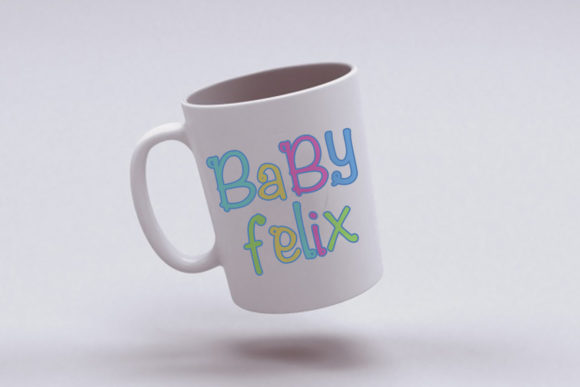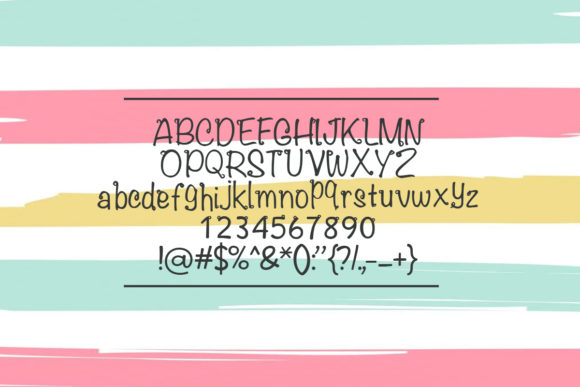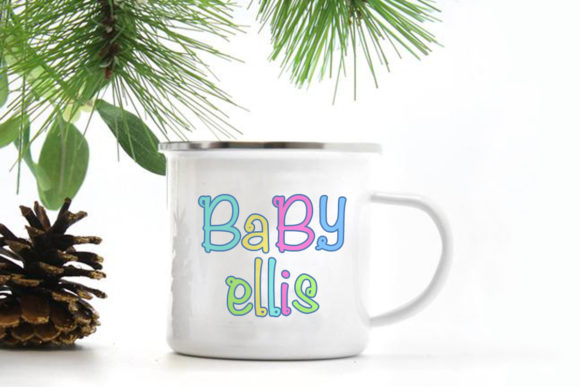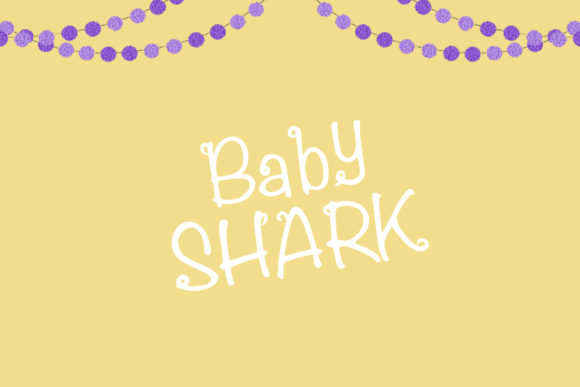
Discover the Charm of Flowrelis Font: A Cheerful and Sweet Handwritten Delight
Are you tired of using the same old fonts for your designs and crafts? Look no further! Flowrelis Font is here to bring a burst of joy and playfulness to your creative projects. This cheerful and sweet handwritten font is sure to capture your heart with its unique look and feel.
What is Flowrelis Font?
Flowrelis Font is a carefully crafted handwritten font that exudes a sense of happiness and friendliness. Its playful and whimsical design makes it perfect for a wide range of creative applications, from digital designs to handmade crafts. Whether you’re a designer, crafter, or DIY enthusiast, Flowrelis Font is sure to become your new favorite go-to font.
The Characteristics of Flowrelis Font
So, what makes Flowrelis Font so special? Here are just a few of its key characteristics:
- Handwritten with love: Flowrelis Font is a genuine handwritten font, created with care and attention to detail to give it a personal and human touch.
- Cheerful and sweet: The font’s playful design is sure to put a smile on your face, making it perfect for projects that require a lighthearted and upbeat feel.
- Unique and distinctive: Flowrelis Font has a one-of-a-kind look that’s sure to set your designs and crafts apart from the rest.
- Highly versatile: This font can be used for a wide range of creative applications, from digital designs to handmade crafts.
Uses for Flowrelis Font
So, what can you use Flowrelis Font for? The possibilities are endless! Here are just a few ideas to get you started:
- Digital designs: Use Flowrelis Font to add a playful touch to your social media graphics, blog posts, and website designs.
- Handmade crafts: Add a personal touch to your handmade crafts, such as cards, gift tags, and scrapbooking projects.
- Branding and packaging: Use Flowrelis Font to create unique and eye-catching branding and packaging designs for your business or products.
- Invitations and announcements: Make your invitations and announcements stand out with the cheerful and playful design of Flowrelis Font.
Why Choose Flowrelis Font?
With so many fonts to choose from, why should you choose Flowrelis Font? Here are just a few reasons:
- Unique and original: Flowrelis Font is a one-of-a-kind font that’s sure to set your designs and crafts apart from the rest.
- Easy to read and use: Despite its playful design, Flowrelis Font is highly legible and easy to use, making it perfect for both digital and print applications.
- High-quality design: Flowrelis Font is carefully crafted to ensure that it looks great in any size or application.
If you’re looking for a font that will add a touch of joy and playfulness to your designs and crafts, look no further than Flowrelis Font. With its cheerful and sweet handwritten design, this font is sure to capture your heart and become your new favorite go-to font. So why wait? Fall in love with Flowrelis Font today and start creating with its unique and distinctive look and feel!
Whether you’re a designer, crafter, or DIY enthusiast, Flowrelis Font is the perfect choice for anyone looking to add a little bit of whimsy and fun to their creative projects. So go ahead, get creative, and see what amazing things you can make with Flowrelis Font!